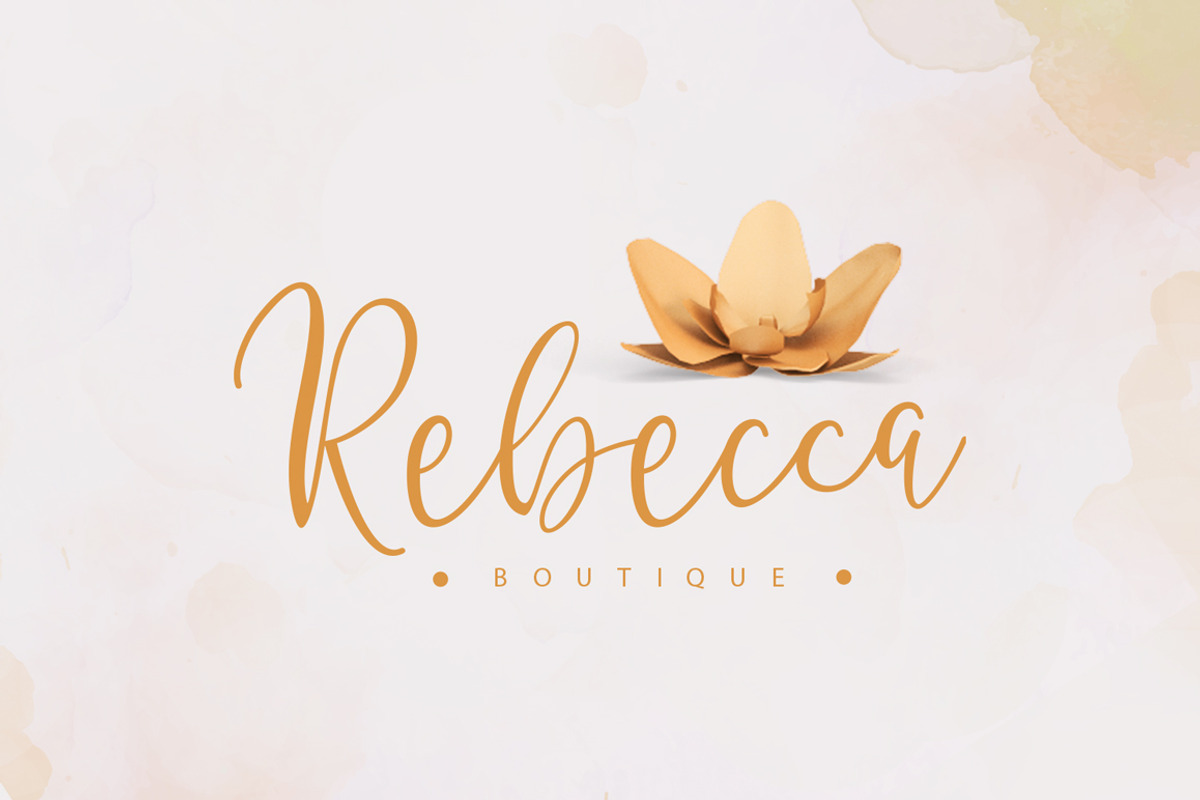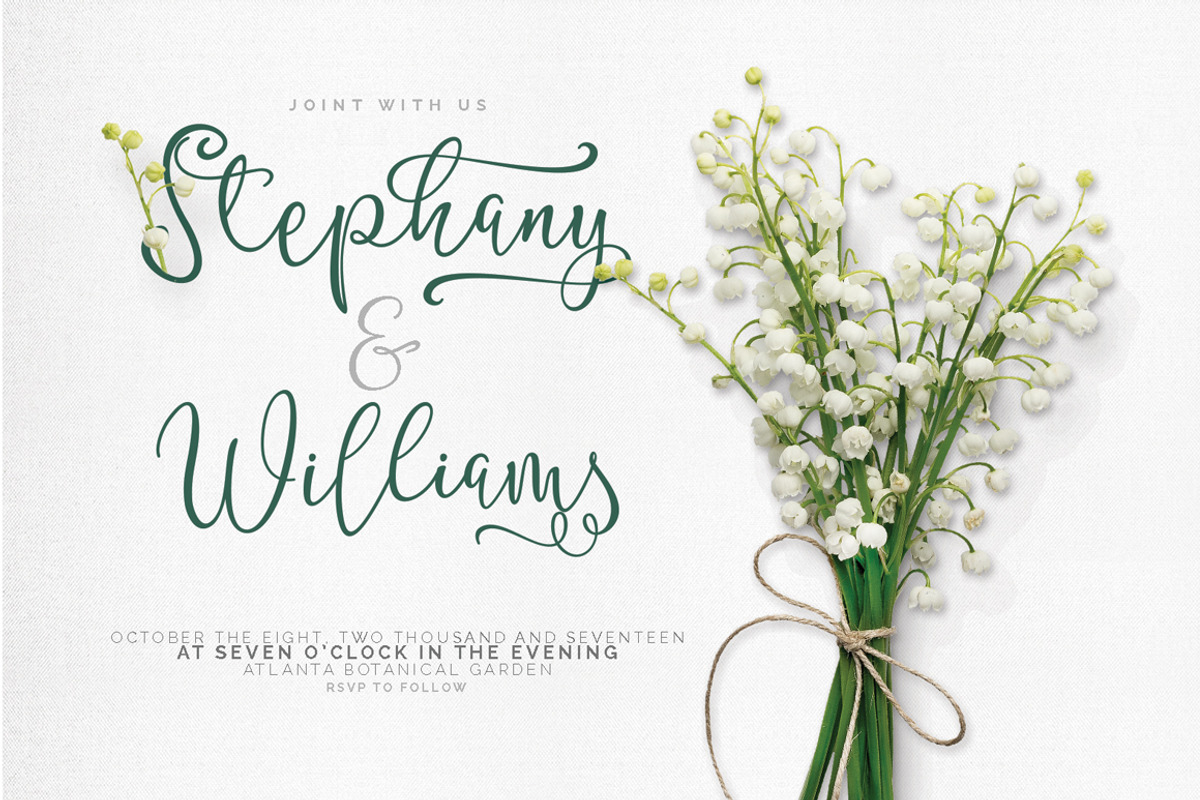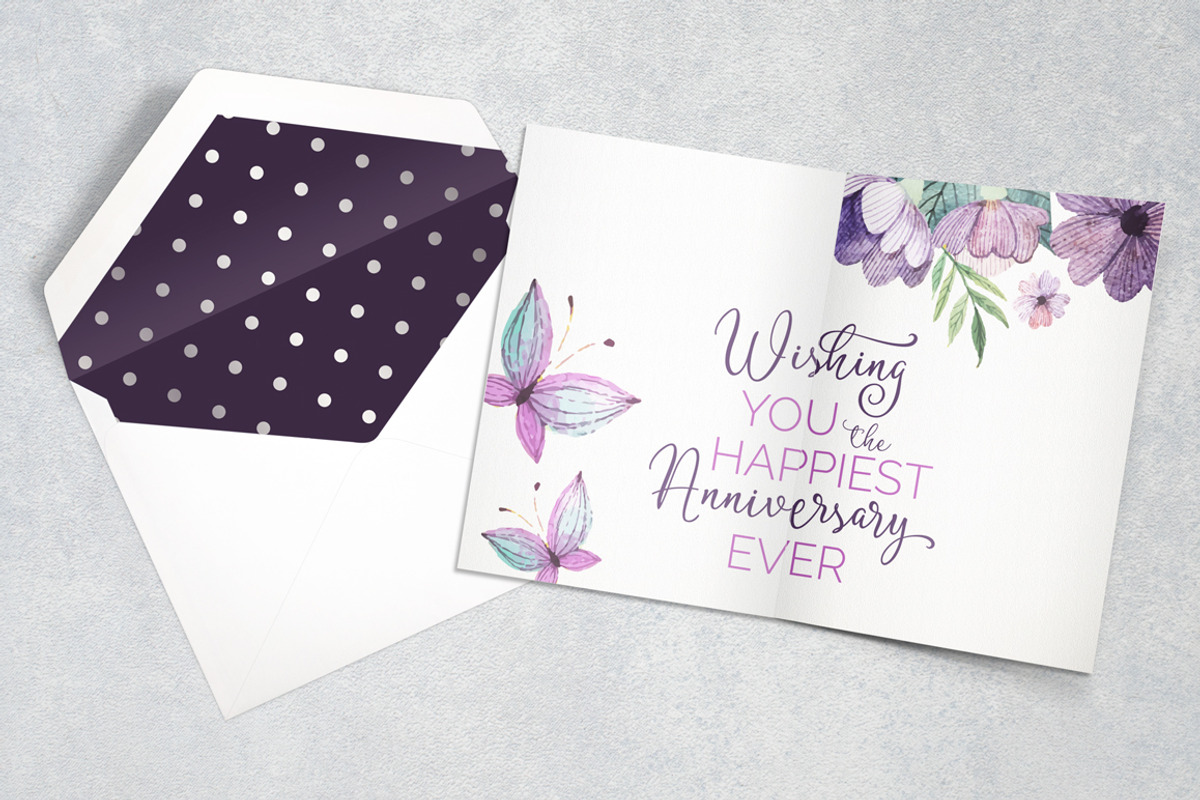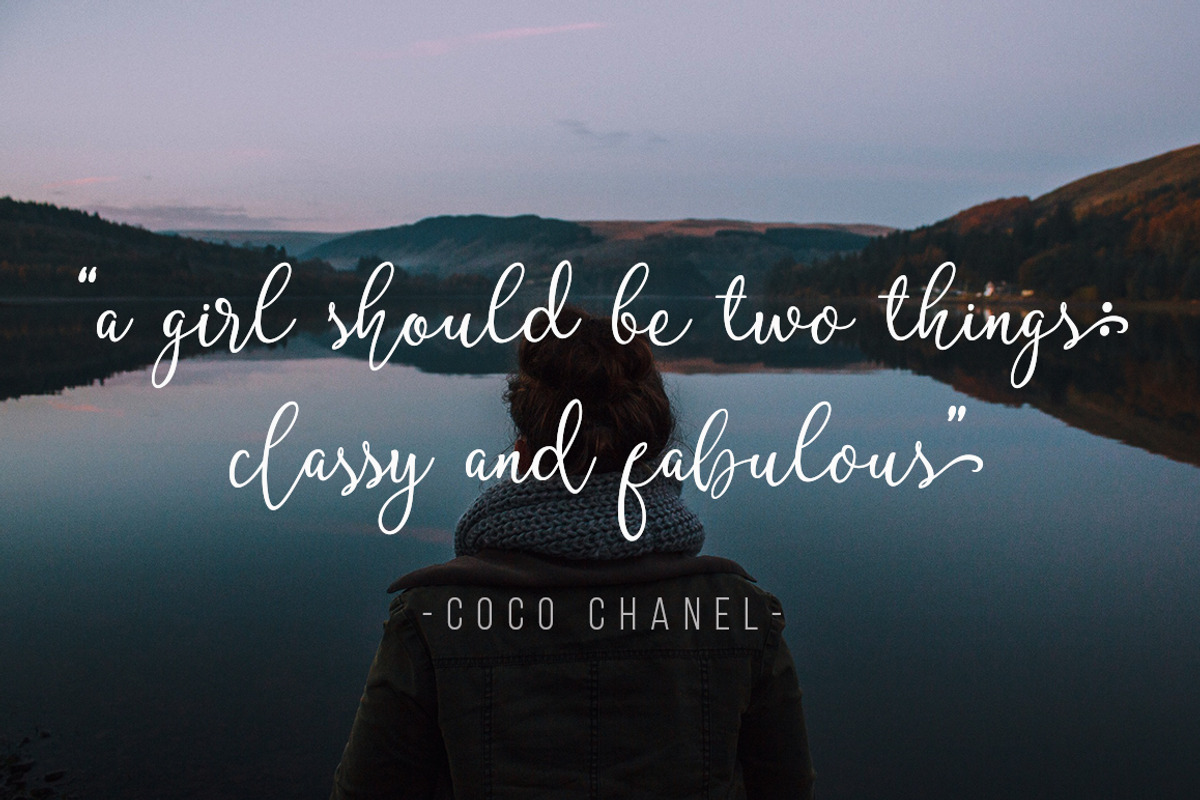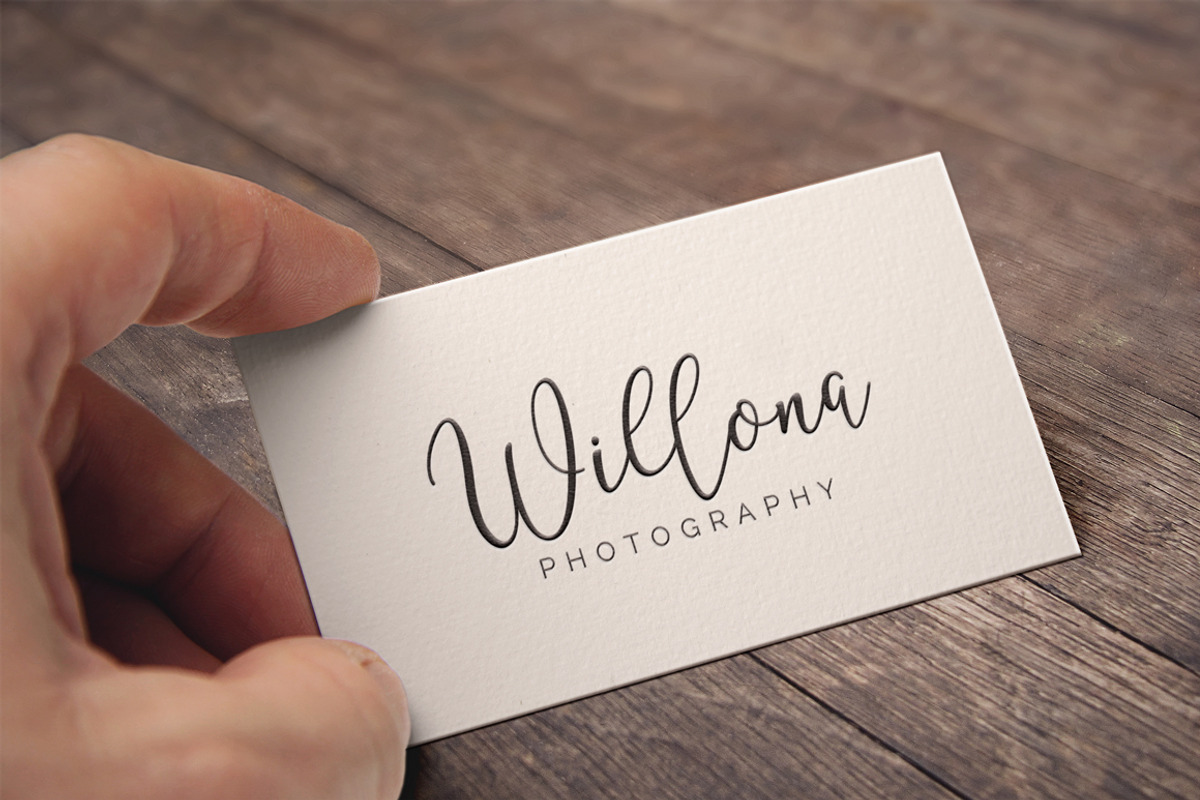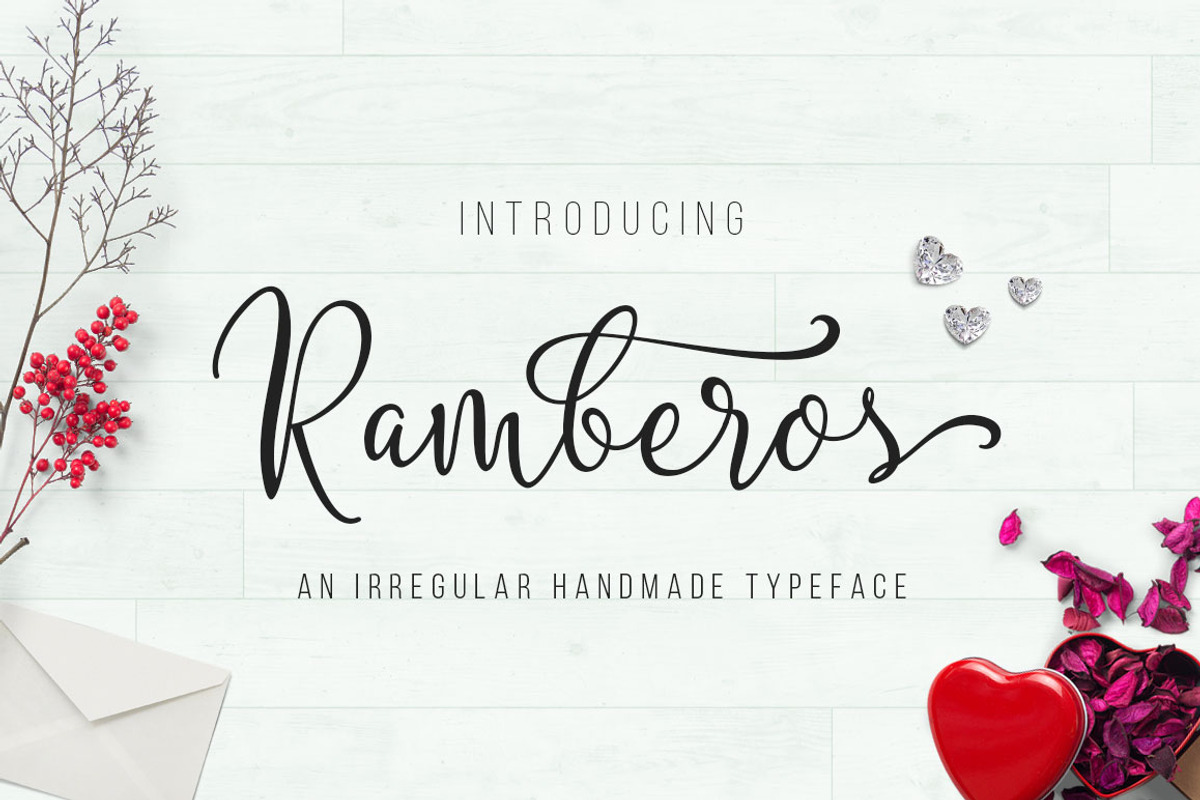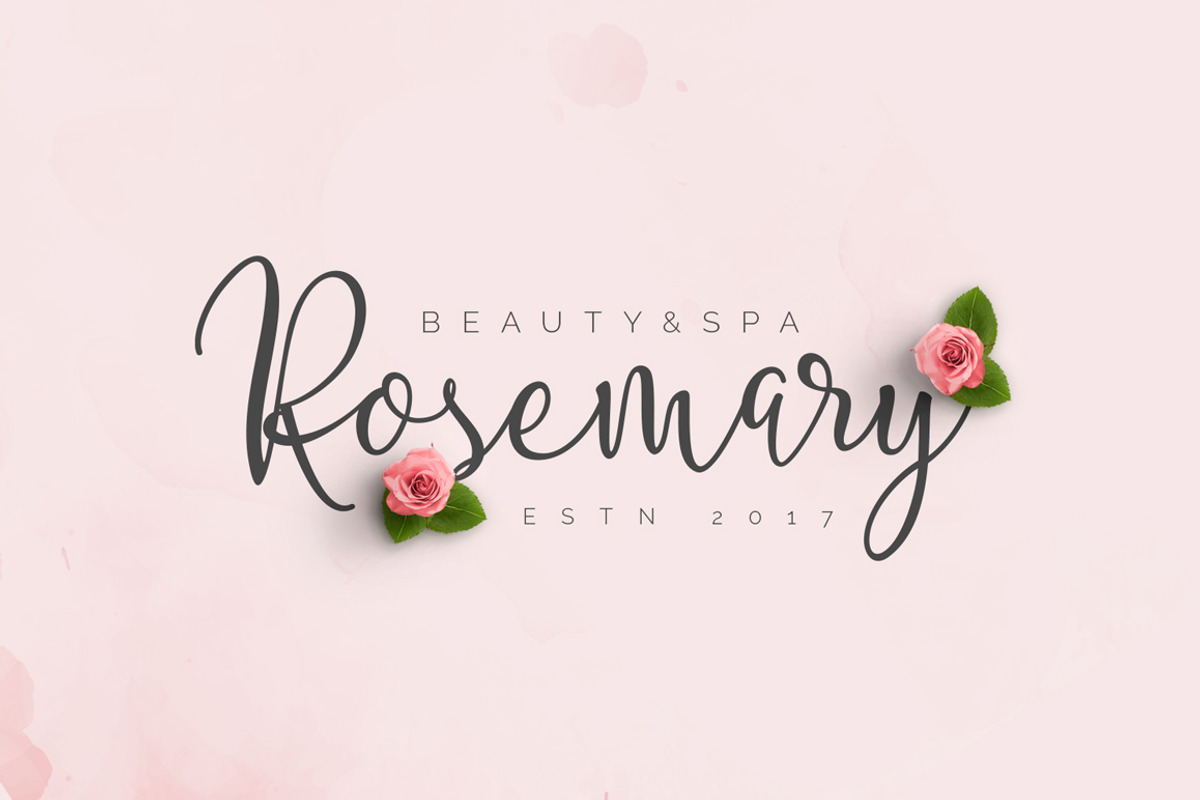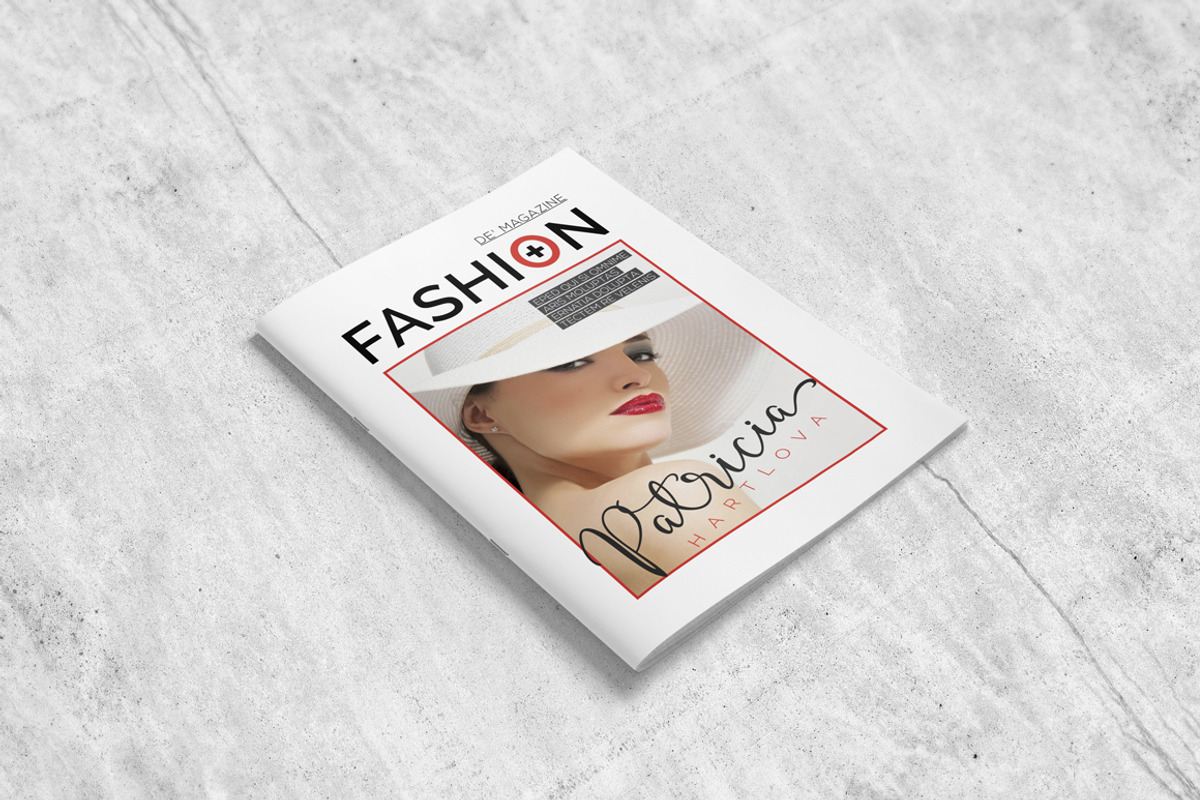
Ramberos Typeface
Ramberos Typeface by banks is a font selected for branding, posters, packaging, typography.
- Standard ligatures
- Stylistic sets
Why Ramberos Typeface is worth a look
Ramberos Typeface by banks fits naturally into Branding, posters, packaging, typography.